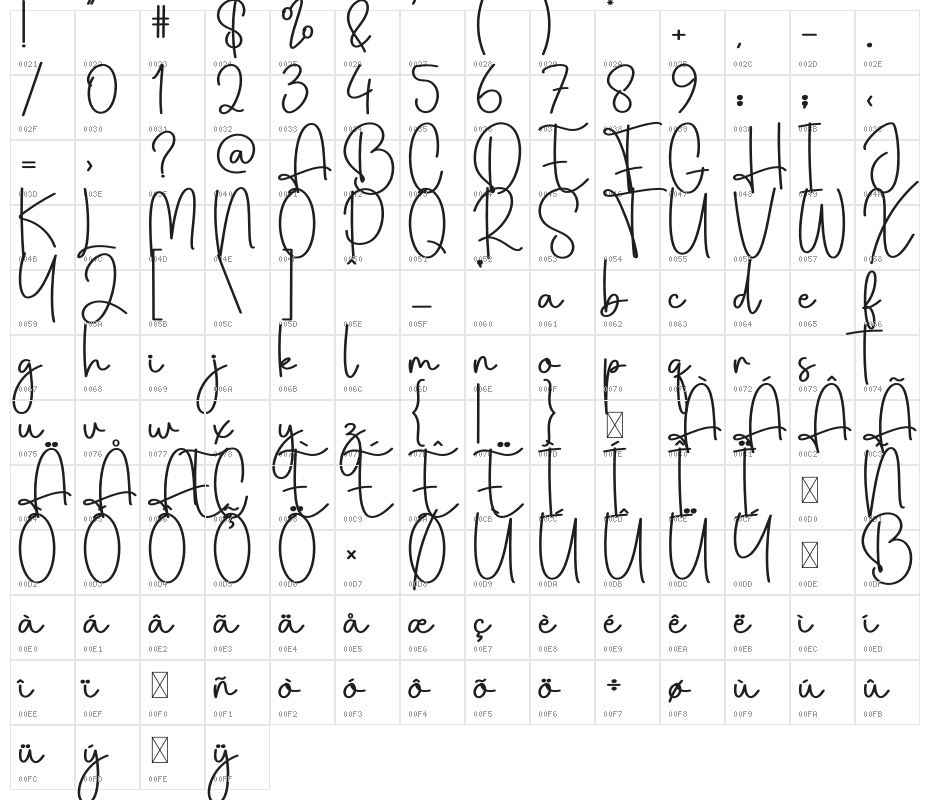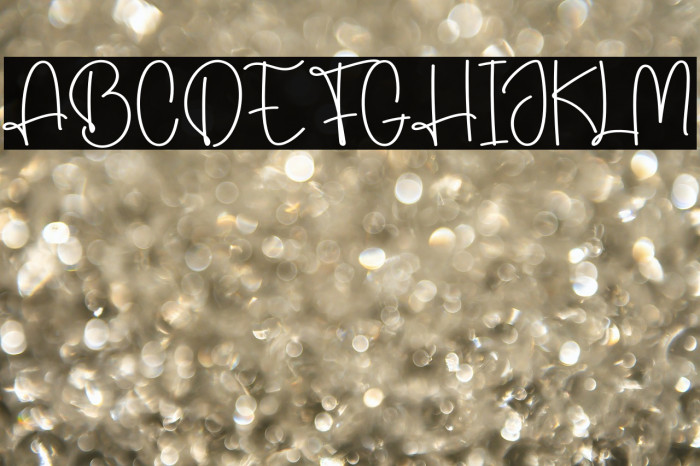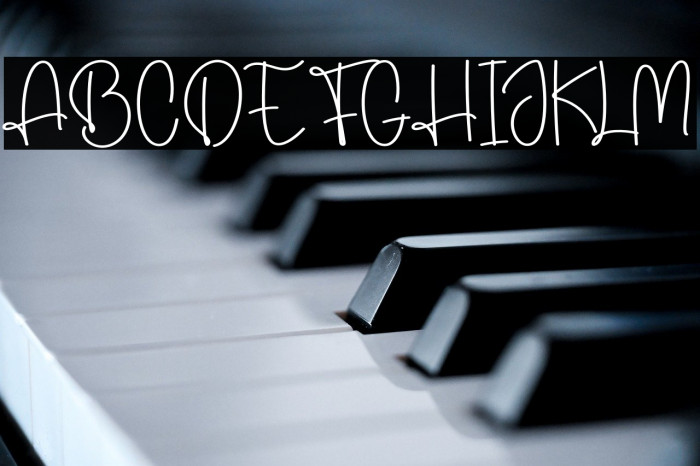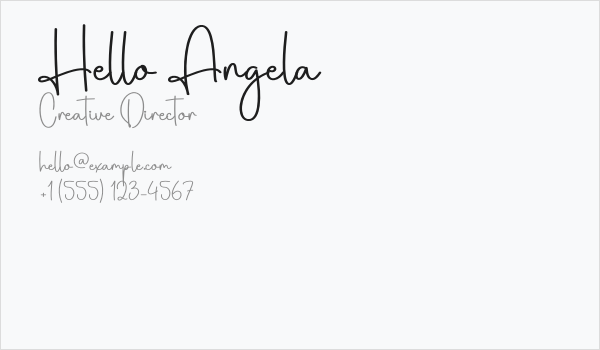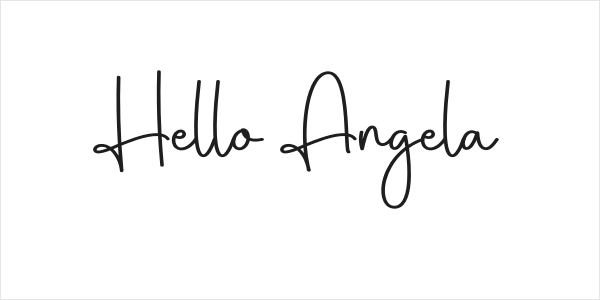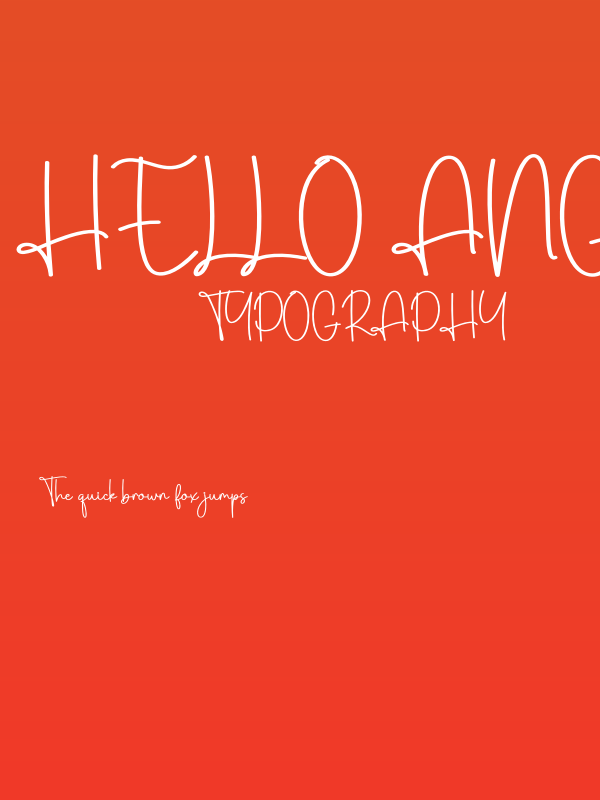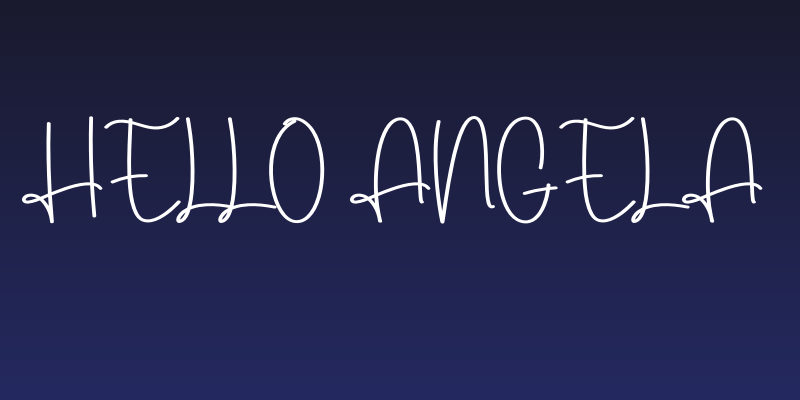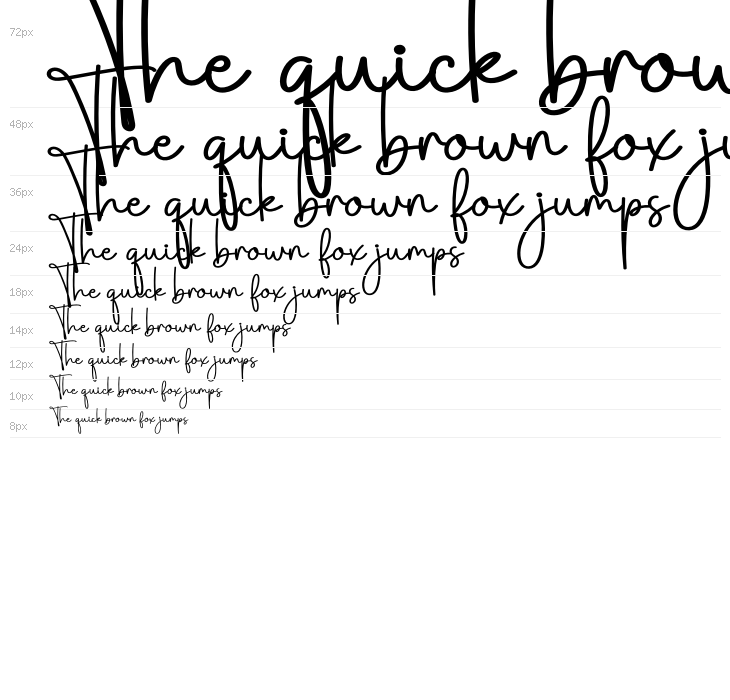
Hello Angela Font
Hello Angela Description
A playful, handwritten script font with a casual and flowing style, featuring connected letters and a personal touch.
Fonts by Scratchones
| Overall Style | Casual, Playful |
| Use Case | Logos, Invitations, Personal notes |
| Proposed Projects | Greeting cards, invitations, personal branding. |